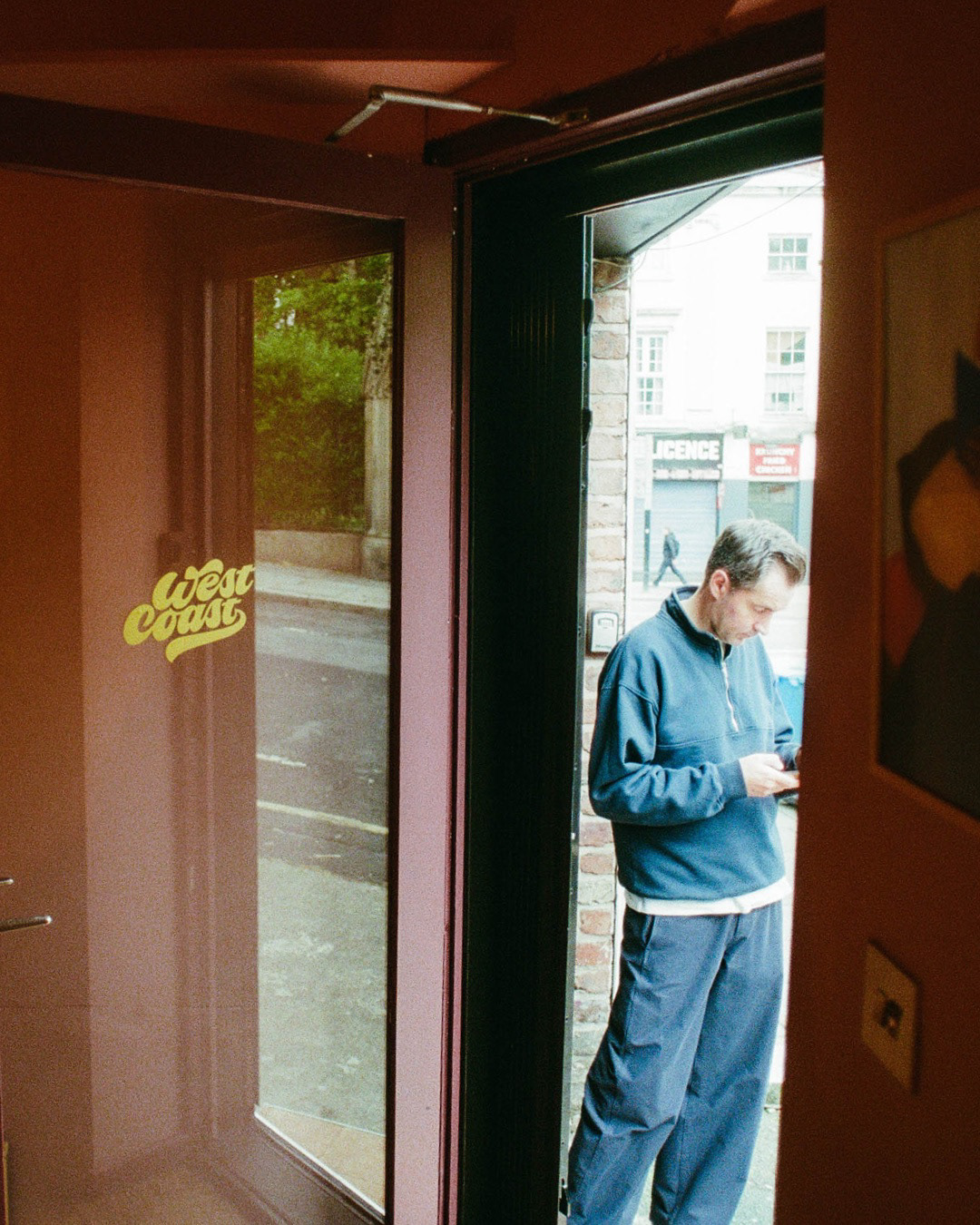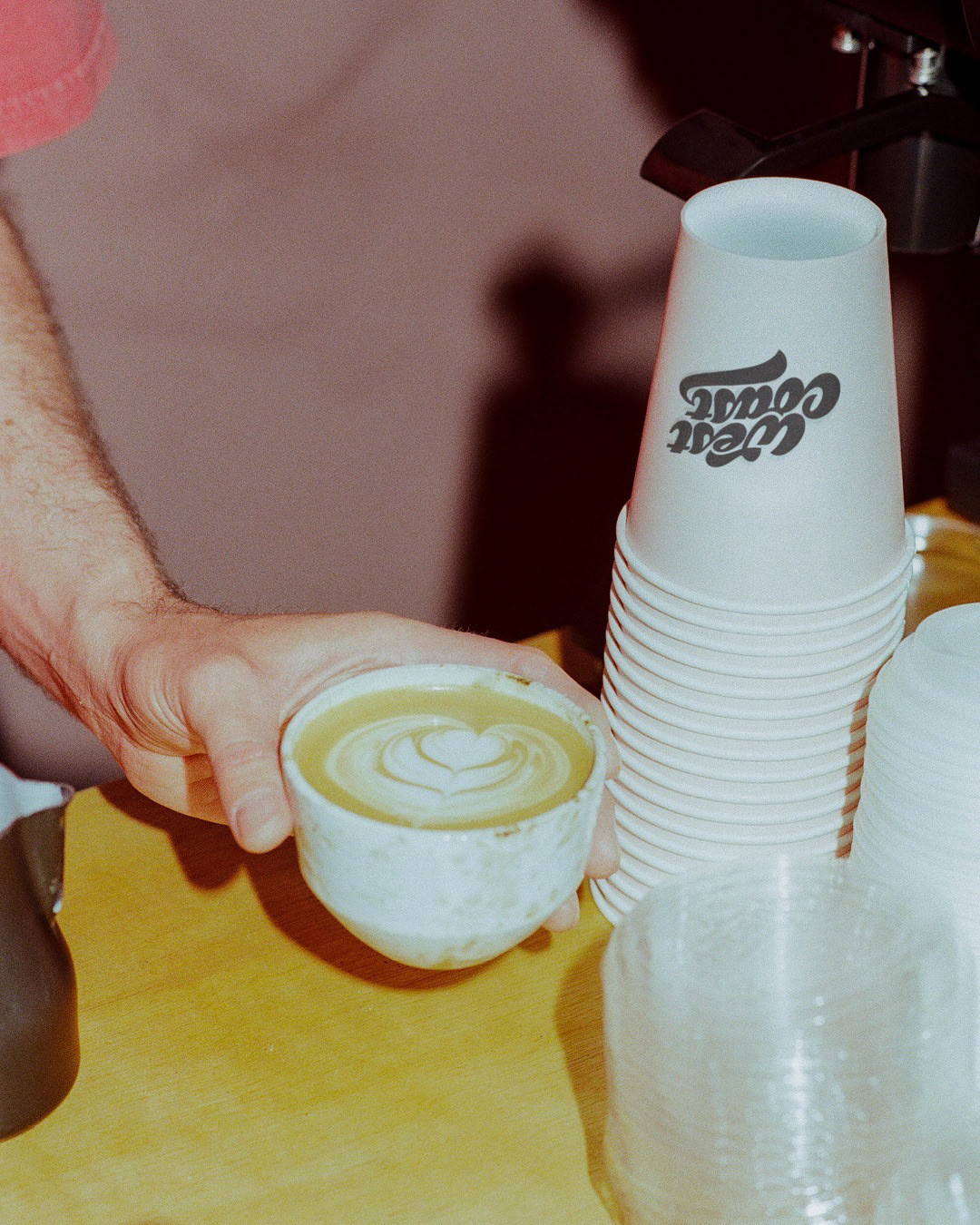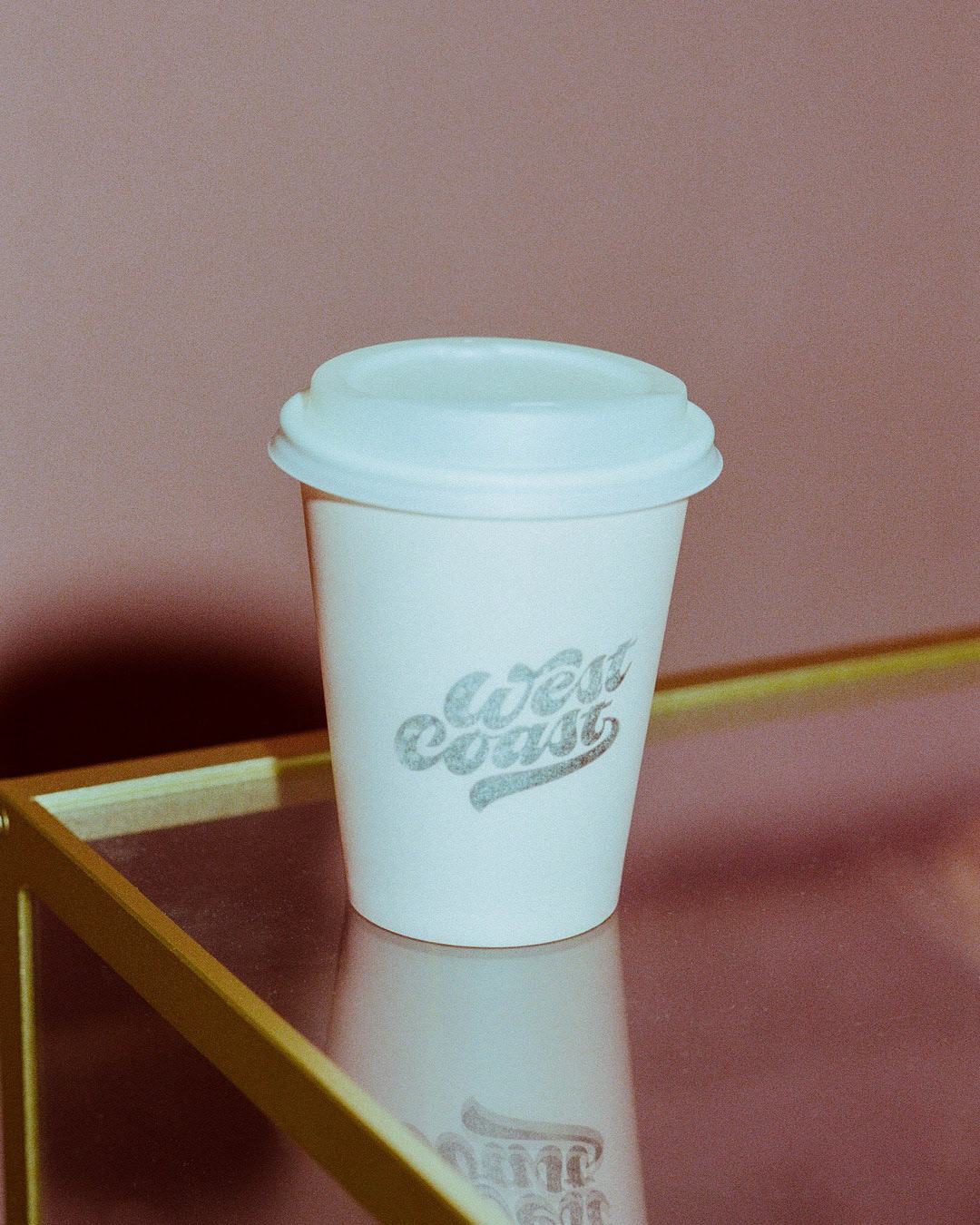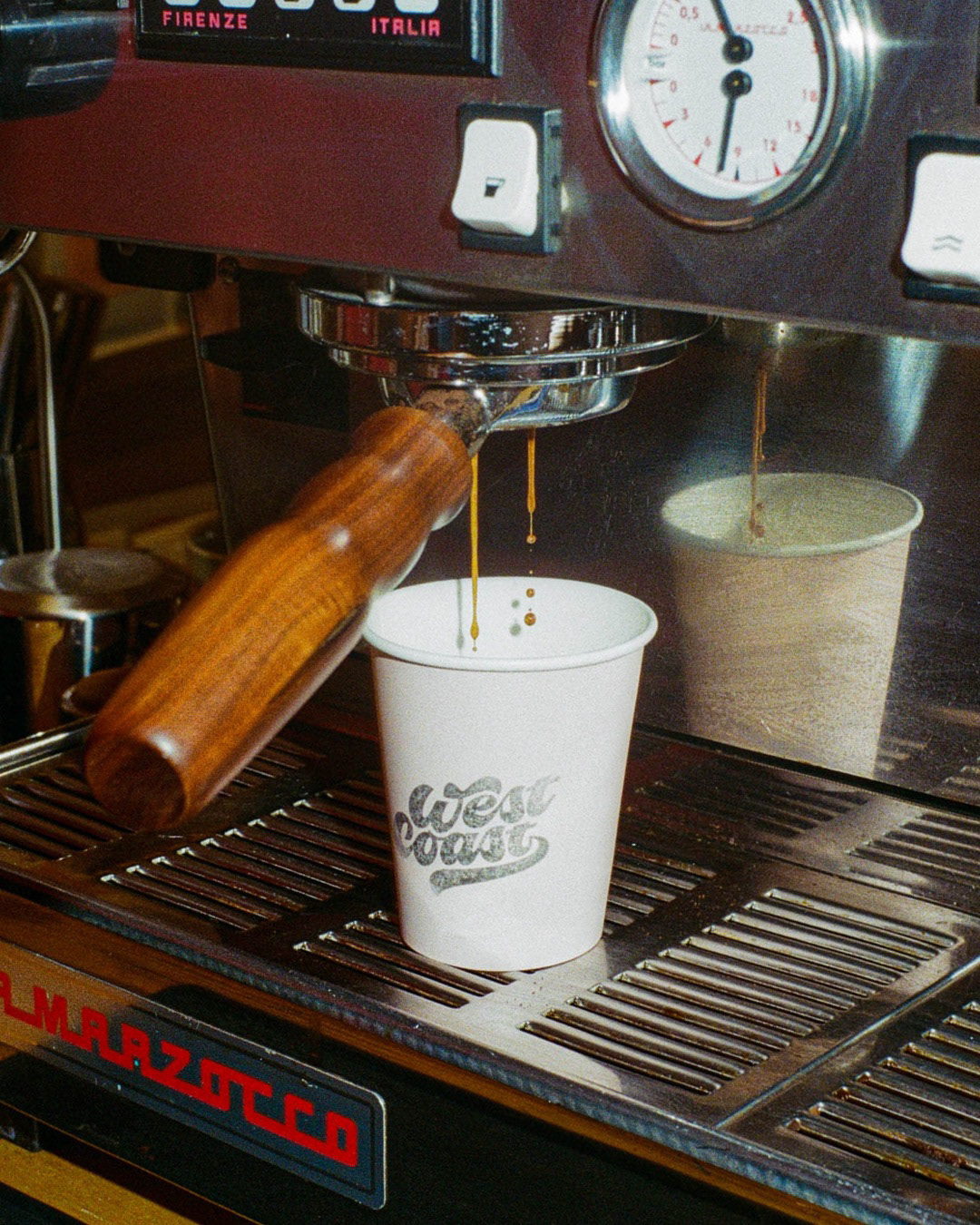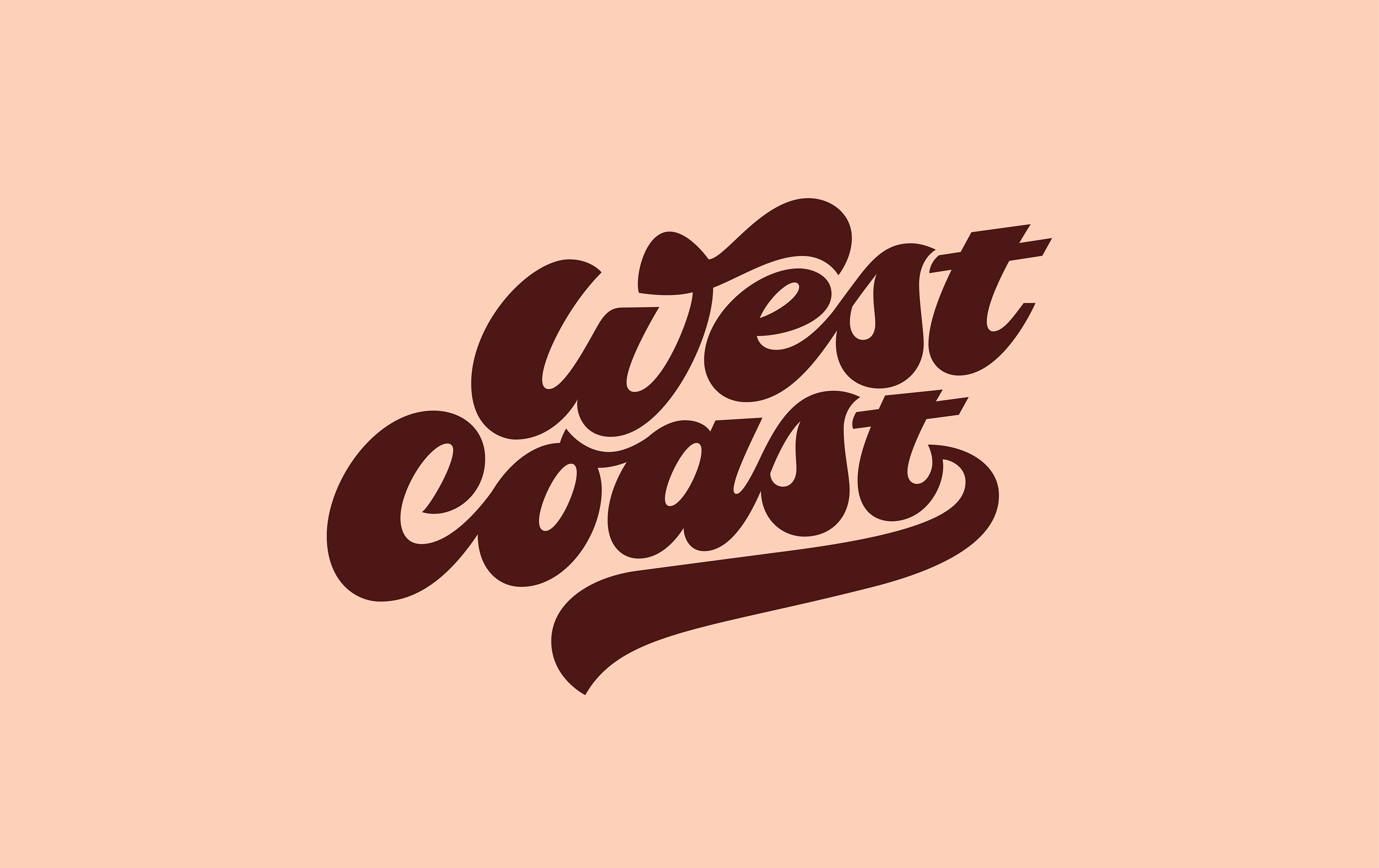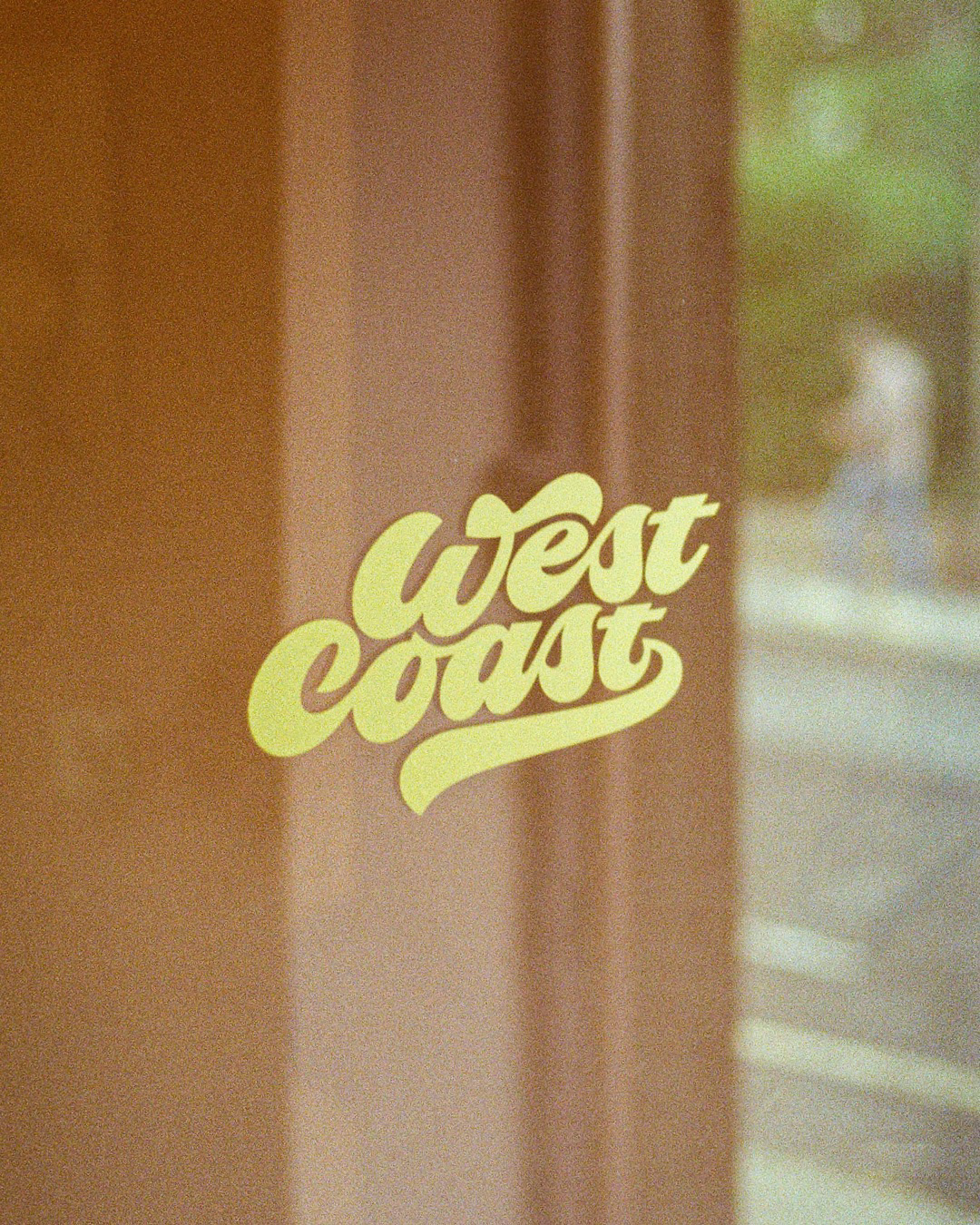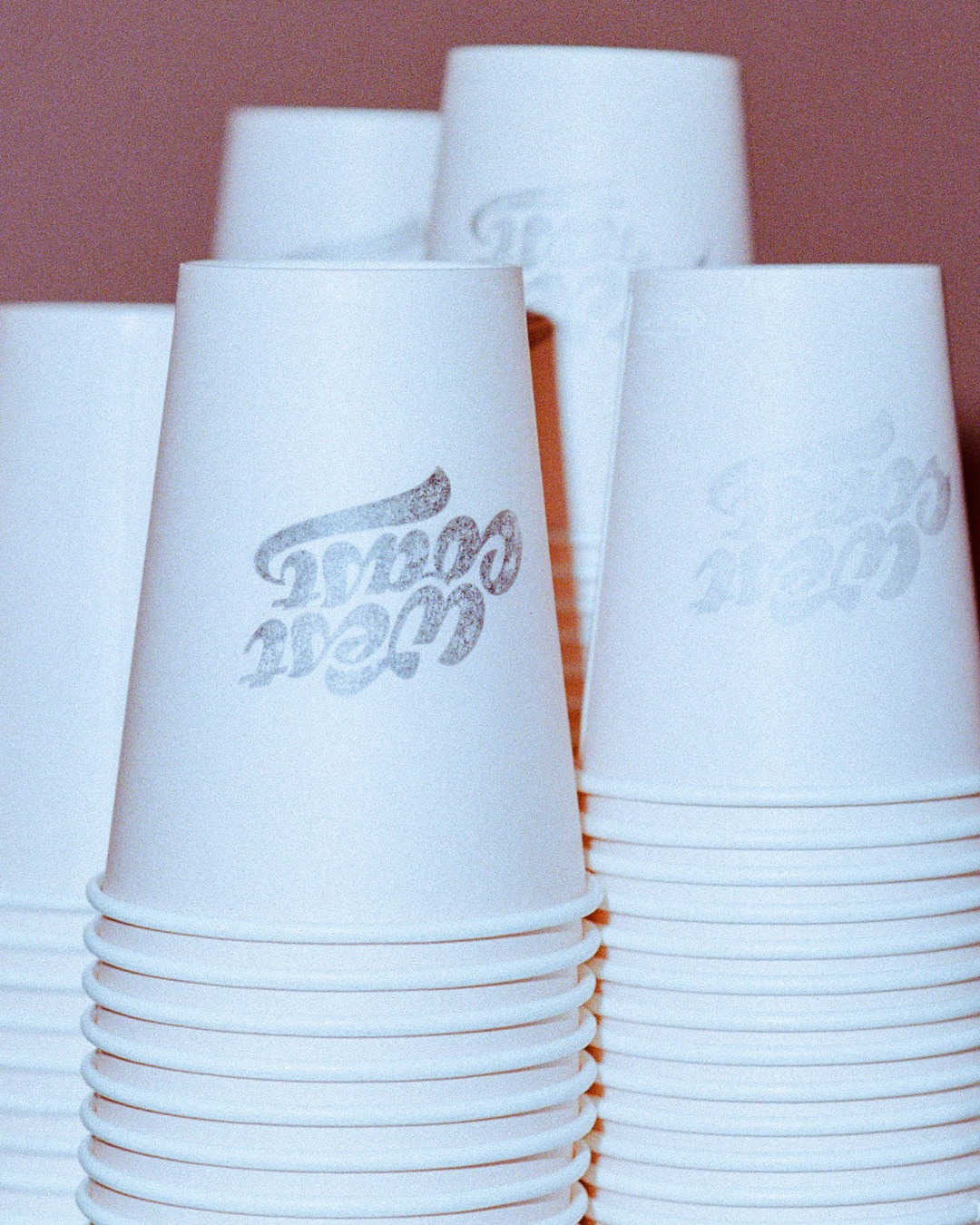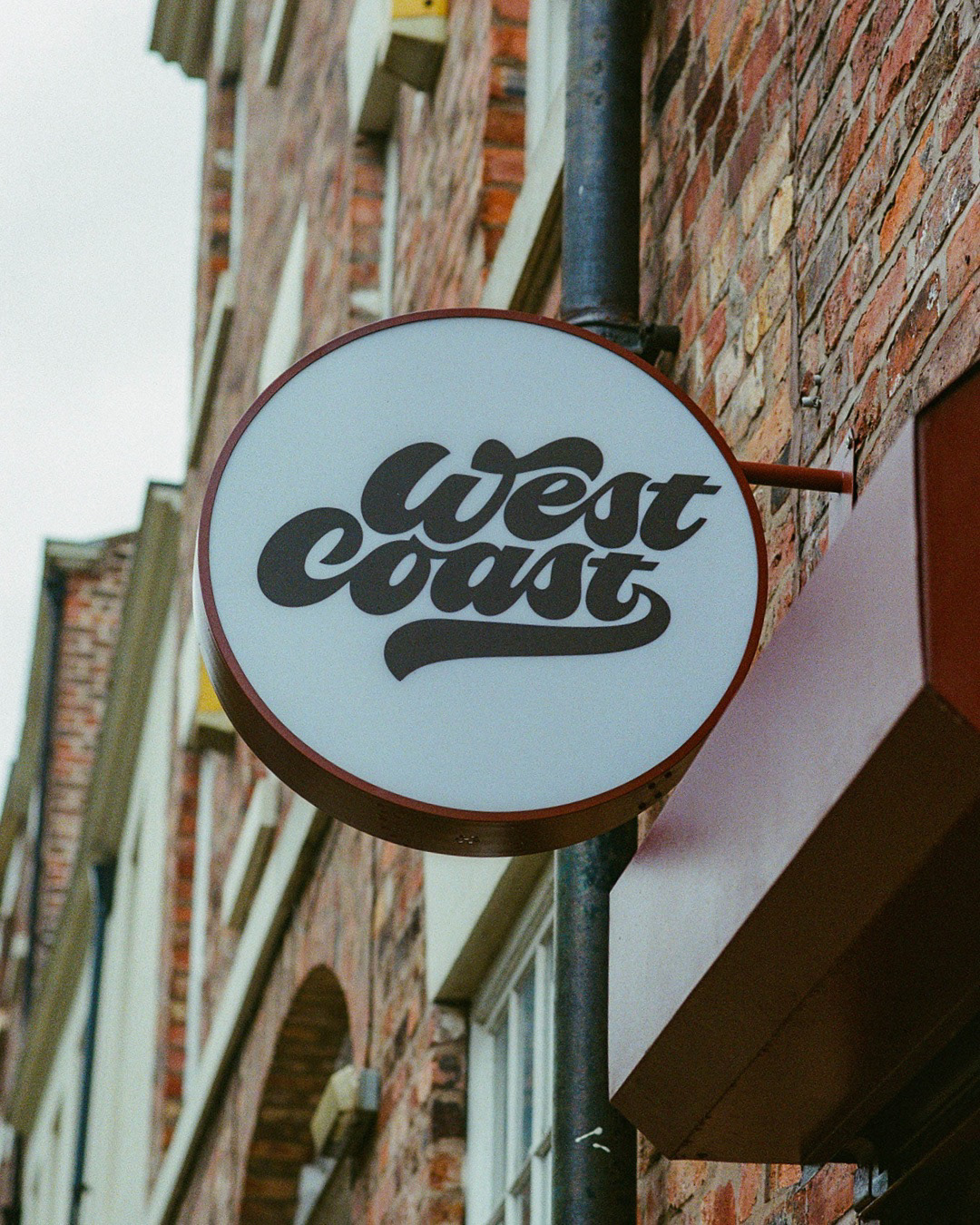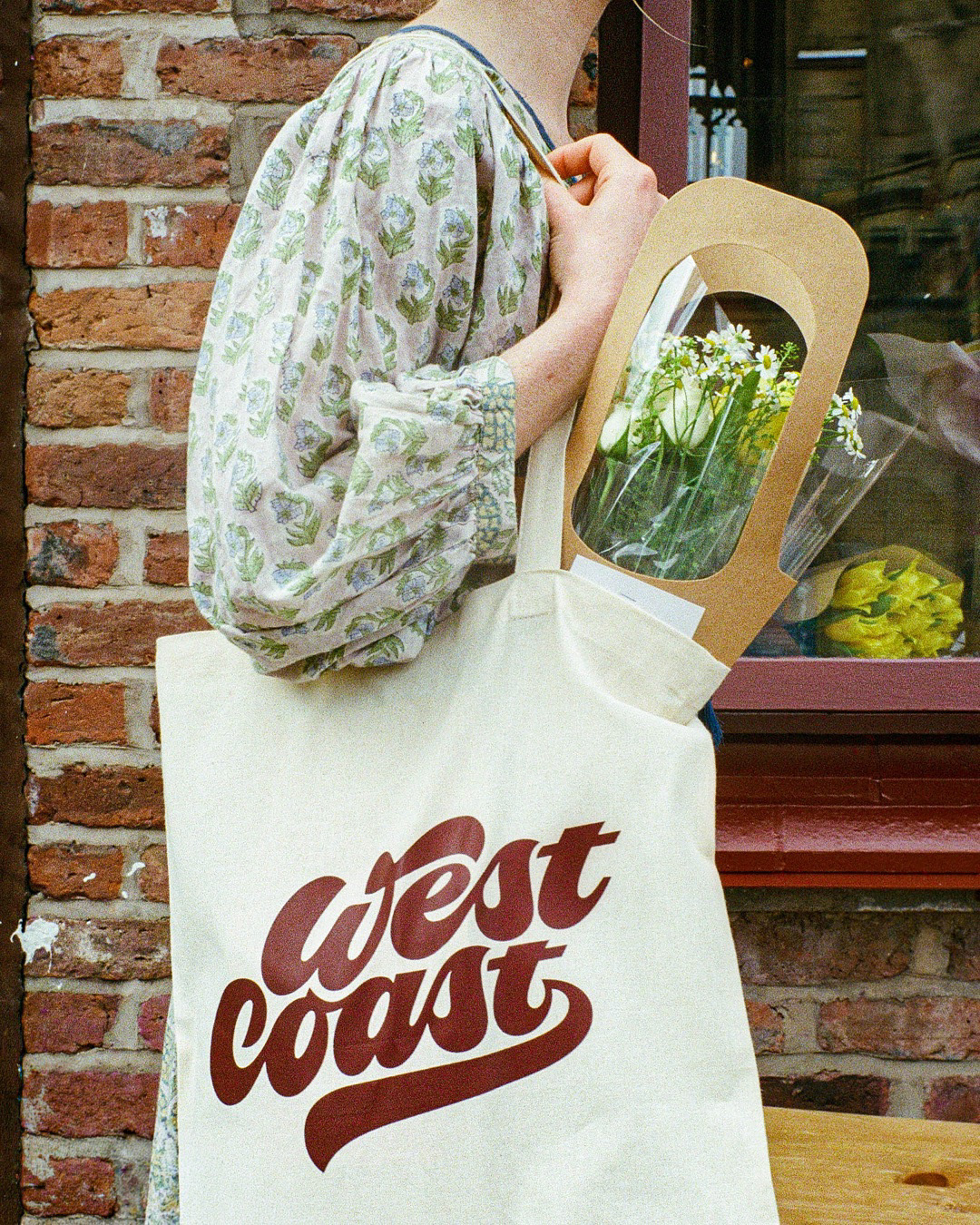
A lovely project to be a part of. I had the pleasure of creating the custom lettering for this brand, developed by the team at Redefine Studio for a couple who brought their dream from Australia to Sefton Park, Liverpool, and now a brick and mortar shop in the heart of the city. Inspired by Australia's laid-back surf culture and coffee scene, the brand feels relaxed, friendly and welcoming while still feeling at home in Liverpool. I incorporated a subtle wave into the lettering as a nod to the owners' coastal roots, bringing a little bit of that beach culture from one west coast to another.